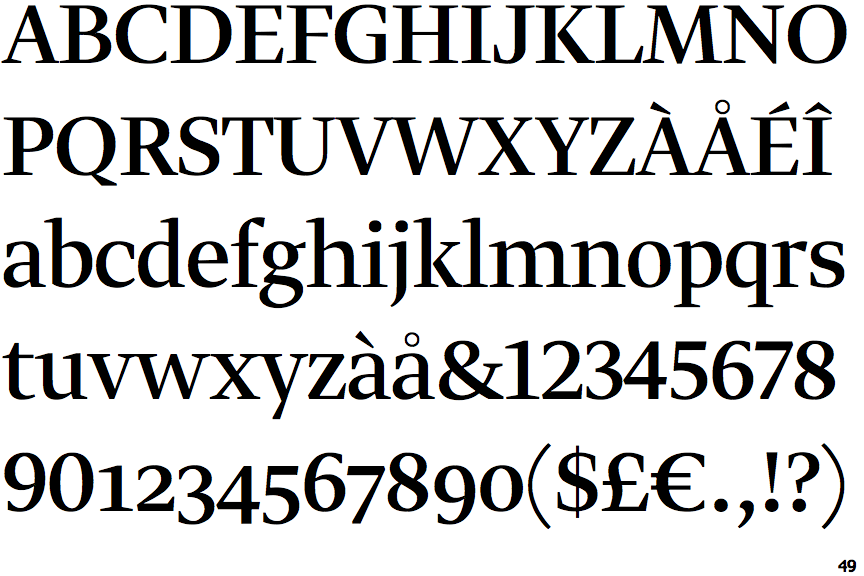
Greta Display
One of a set of Optical sizes with the fonts Greta Text and Greta Grande.
Designers: Peter Biľak and Nikola Djurek
Year: 2008
Publisher: Typotheque
Among the typefaces chosen in the review Our Favorite Typefaces of 2007 by the on-line journal Typographica.
An OpenType font that includes both lining and oldstyle figures.